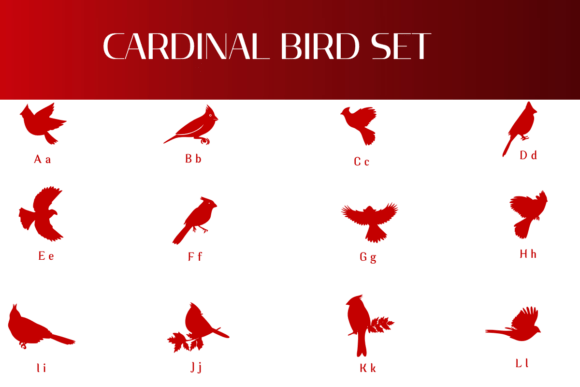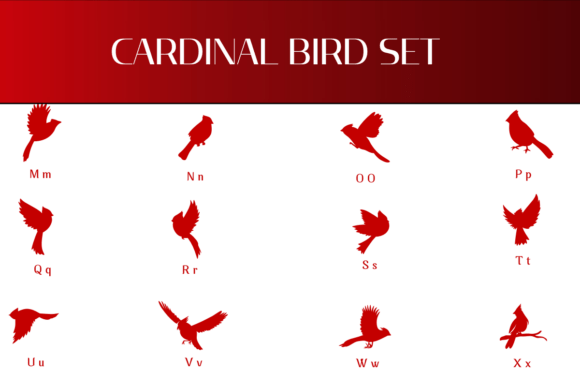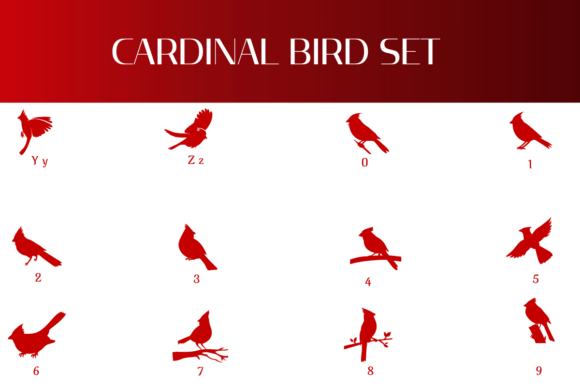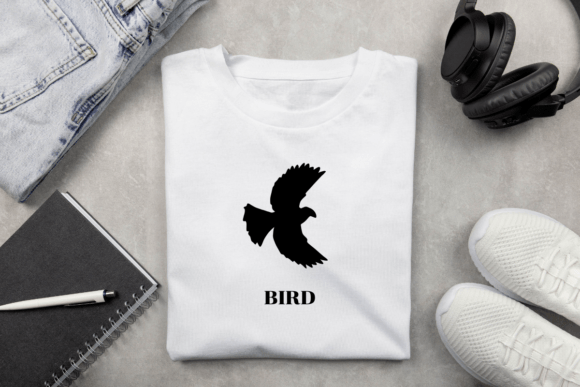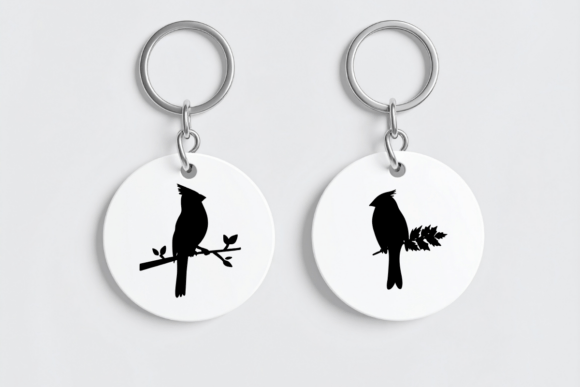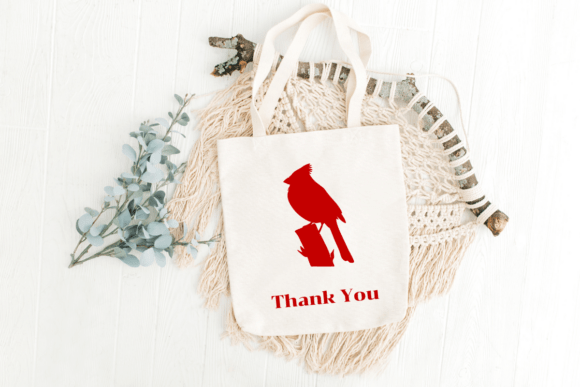
Bring the Wild to Your Designs with Cardinal Bird Set Font
Are you a designer or crafter looking to add a touch of nature to your work? Look no further than the Cardinal Bird Set Font, a comprehensive dingbats font featuring 24 unique silhouettes of cardinals in various poses. This symbol font is perfect for adding high-quality nature illustrations to your layouts, and with its ease of use, you can create stunning designs in no time.
What is the Cardinal Bird Set Font?
The Cardinal Bird Set Font is a professional-grade toolkit designed for designers who want consistent, vector-quality bird graphics that scale perfectly without the need for complex illustration software. With this font, you can add beautiful cardinal illustrations to your designs by simply typing. The font features 24 unique silhouettes, ranging from cardinals in flight to serene perching poses, allowing you to choose the perfect image for your project.
Key Features of the Cardinal Bird Set Font
- 24 Unique Silhouettes: The Cardinal Bird Set Font features 24 unique silhouettes of cardinals, ensuring you have plenty of options to choose from for your designs.
- Easy to Use: This symbol font is incredibly easy to use. Simply type and watch your design come to life with high-quality nature illustrations.
- Vector-Quality Graphics: The font provides vector-quality graphics that scale perfectly, making it ideal for designs that need to be resized.
- No Complex Software Needed: You don’t need complex illustration software to use this font. It’s a straightforward, hassle-free way to add beautiful nature illustrations to your designs.
Best Uses for the Cardinal Bird Set Font
The Cardinal Bird Set Font is versatile and can be used in a variety of design projects. Here are some of the best uses for this font:
- Winter Holiday Cards: Add a touch of the wild to your winter holiday cards with beautiful cardinal illustrations.
- Nature Conservation Branding: Use the Cardinal Bird Set Font to create branding materials for nature conservation projects, adding a professional and meaningful touch to your work.
- Outdoor Signage: Perfect for outdoor signage, this font allows you to create eye-catching and informative signs that incorporate beautiful nature illustrations.
- Rustic Home Decor Designs: Bring the outdoors in with rustic home decor designs featuring cardinal illustrations. This font is ideal for creating unique and charming home decor items.
Why Designers and Crafters Love the Cardinal Bird Set Font
Designers and crafters love the Cardinal Bird Set Font for its versatility, ease of use, and high-quality graphics. Here are a few reasons why:
- Time-Saving: With the Cardinal Bird Set Font, you can create stunning designs in a fraction of the time it would take with complex illustration software.
- Consistency: The font provides consistent, vector-quality graphics that ensure your designs look professional and polished.
- Customization: With 24 unique silhouettes to choose from, you can customize your designs to fit your specific needs and style.
Tips for Using the Cardinal Bird Set Font
Here are a few tips for getting the most out of the Cardinal Bird Set Font:
- Experiment with Different Sizes: The vector-quality graphics of the Cardinal Bird Set Font allow you to experiment with different sizes without losing quality.
- Combine with Other Fonts: Combine the Cardinal Bird Set Font with other fonts to create unique and visually appealing designs.
- Use in Digital and Print Projects: The font is versatile and can be used in both digital and print projects, making it a great addition to your design toolkit.
In conclusion, the Cardinal Bird Set Font is a must-have for designers and crafters looking to add a touch of nature to their work. With its ease of use, high-quality graphics, and versatility, this font is perfect for a wide range of design projects. Whether you’re creating winter holiday cards, nature conservation branding, outdoor signage, or rustic home decor designs, the Cardinal Bird Set Font is the perfect choice.